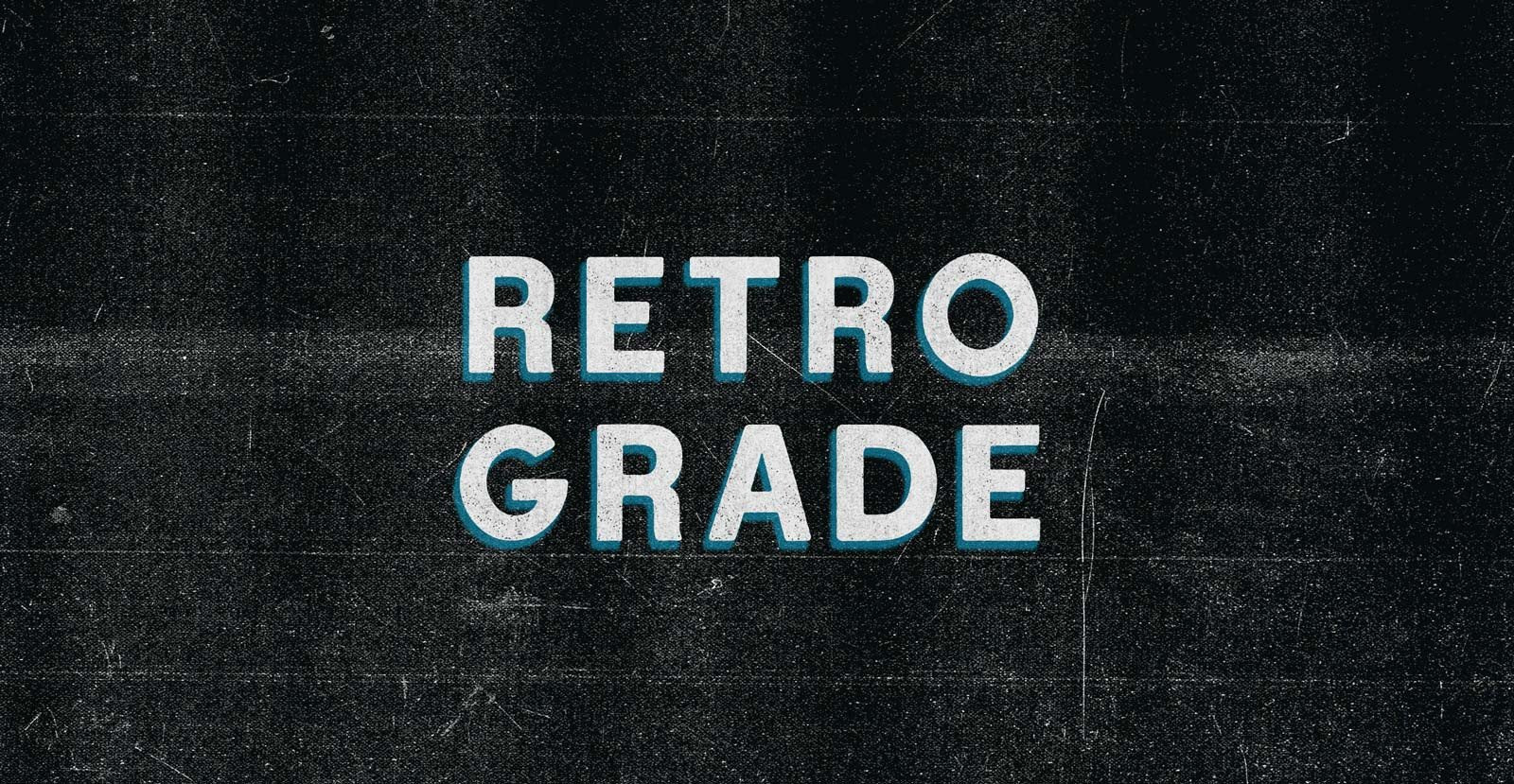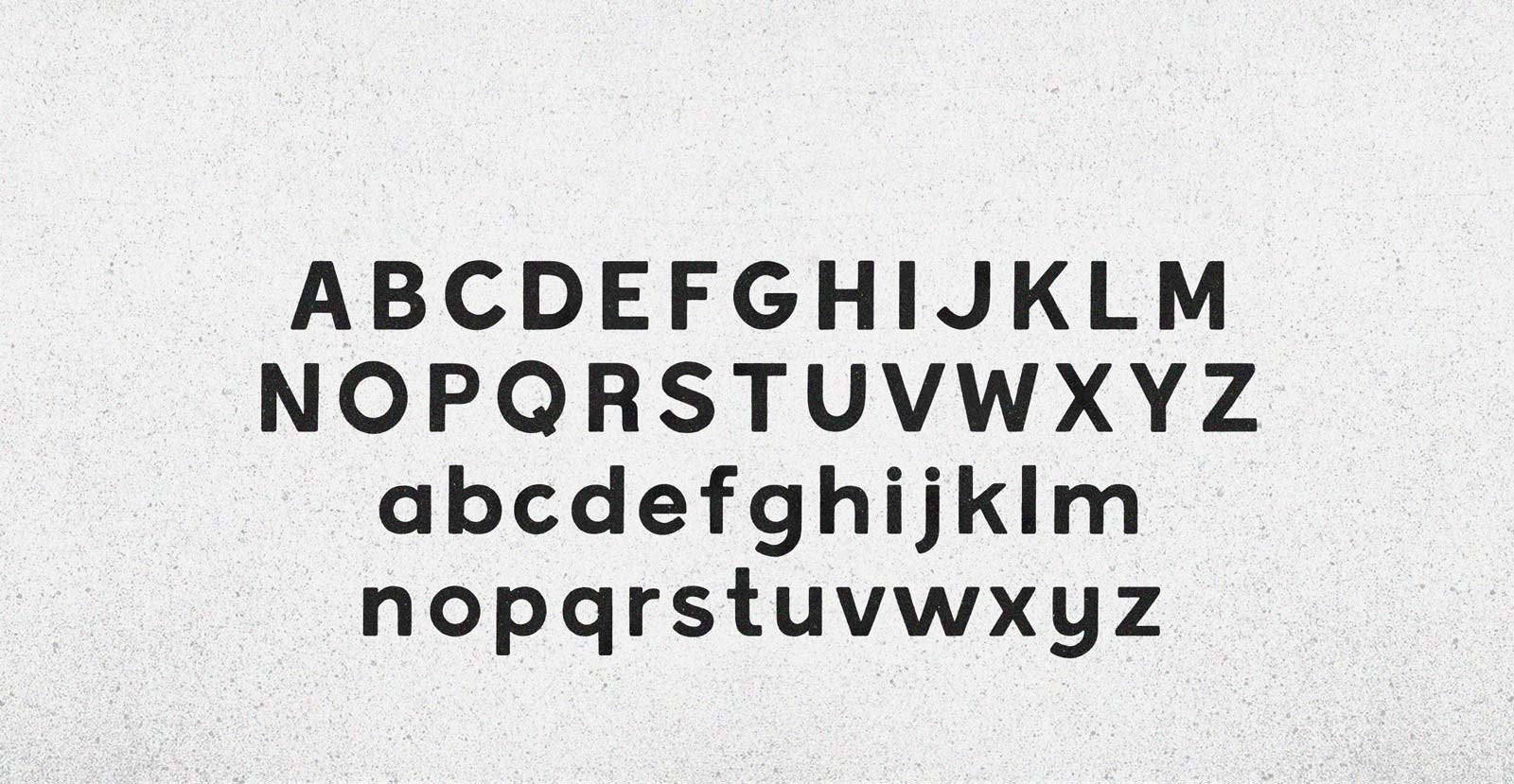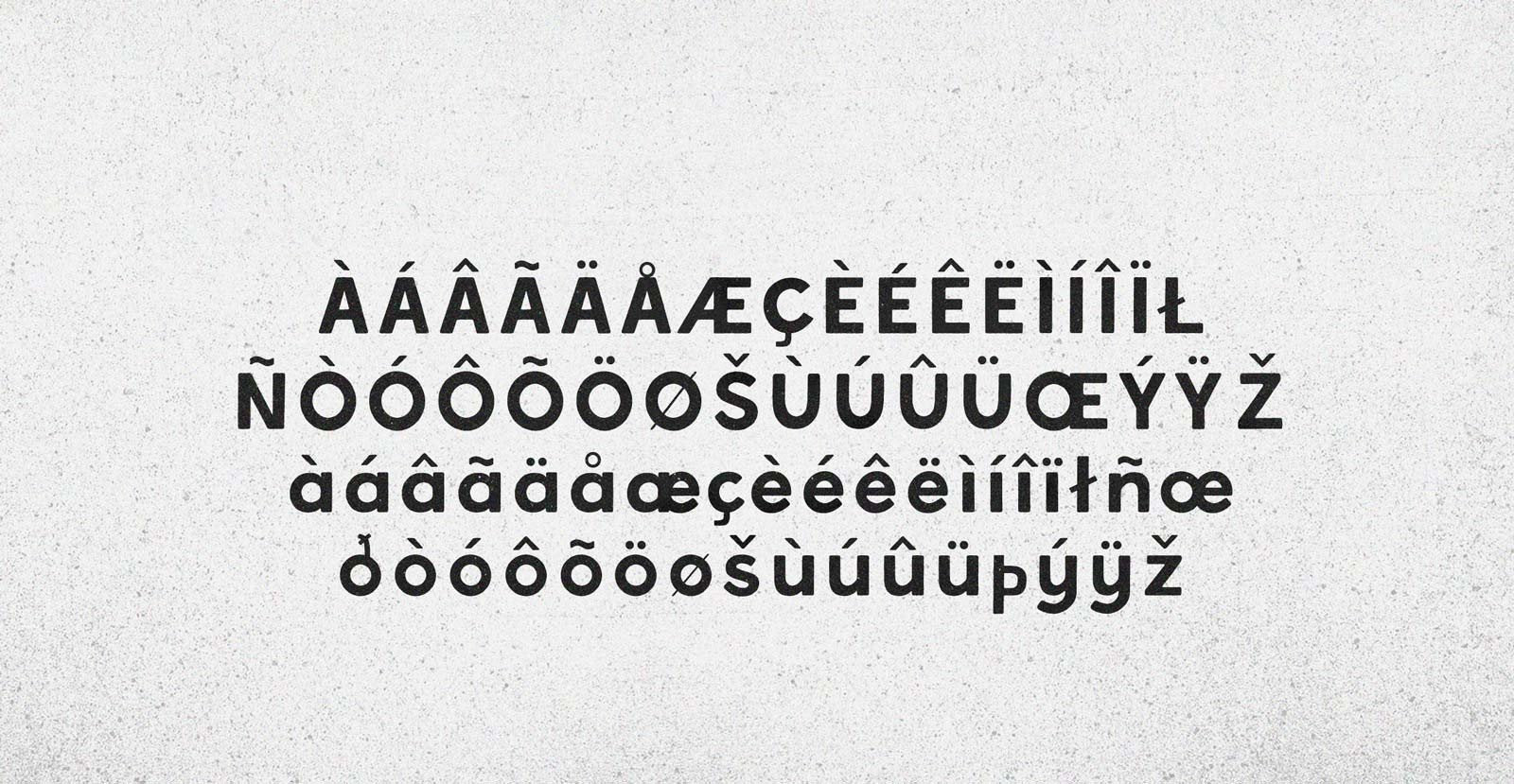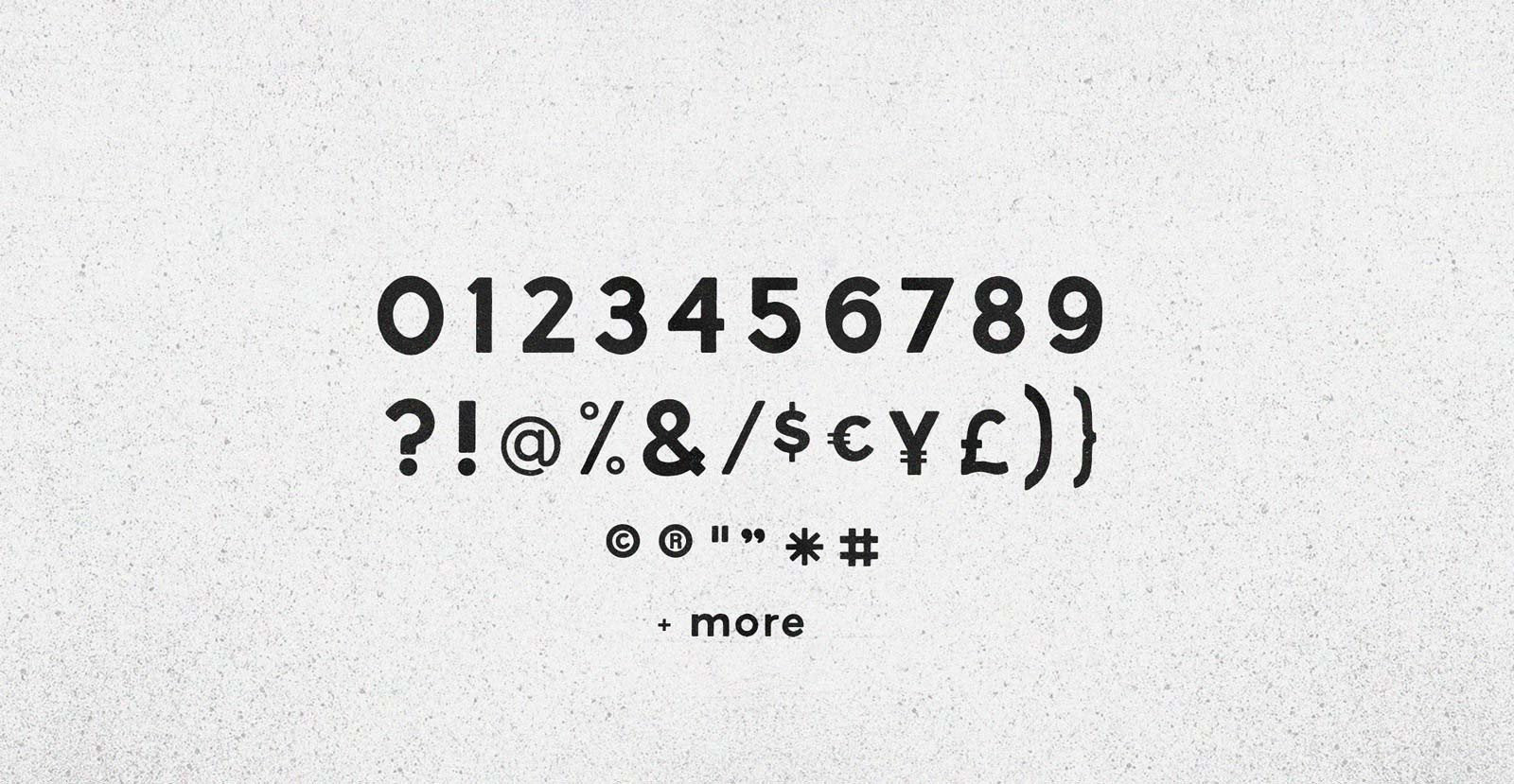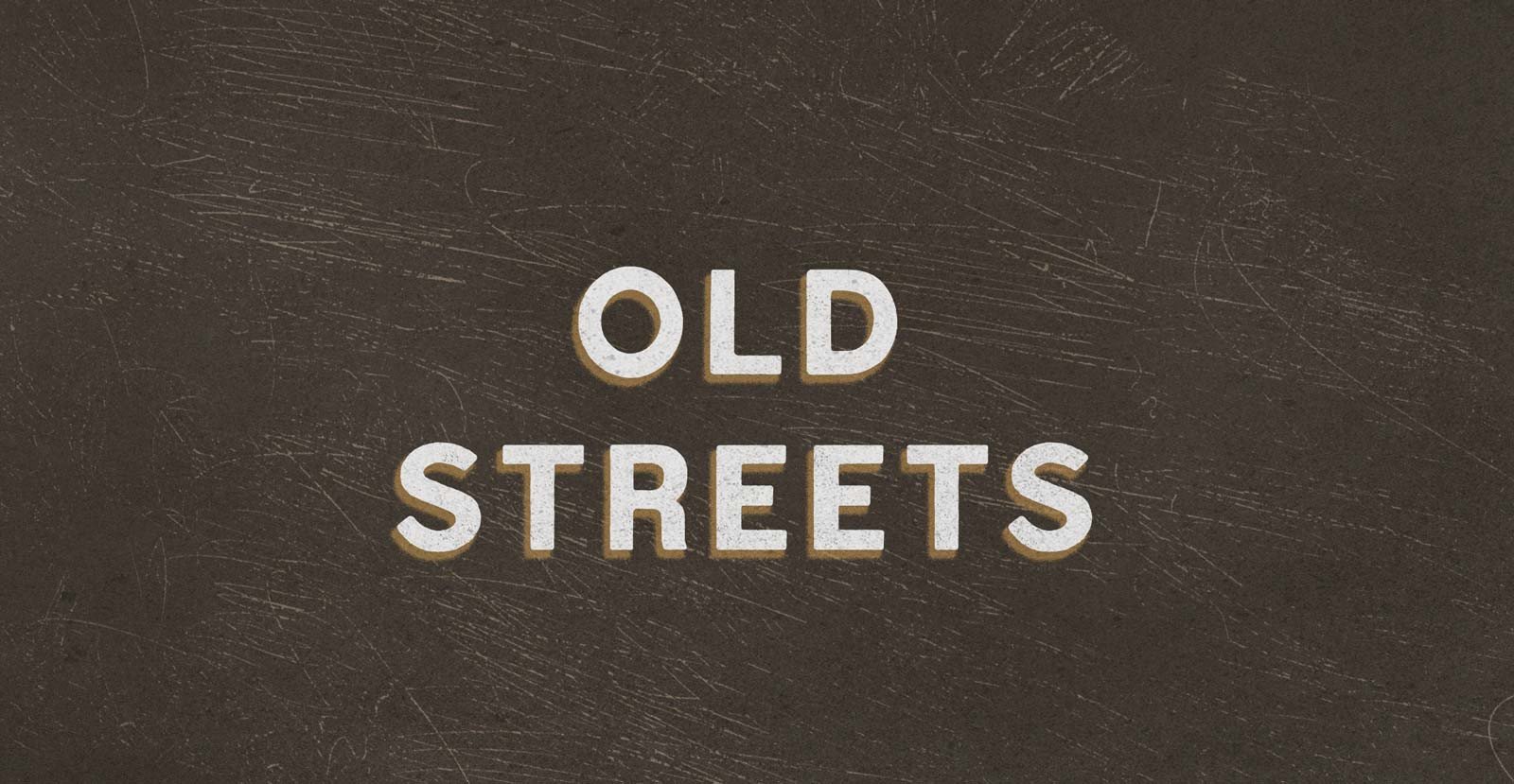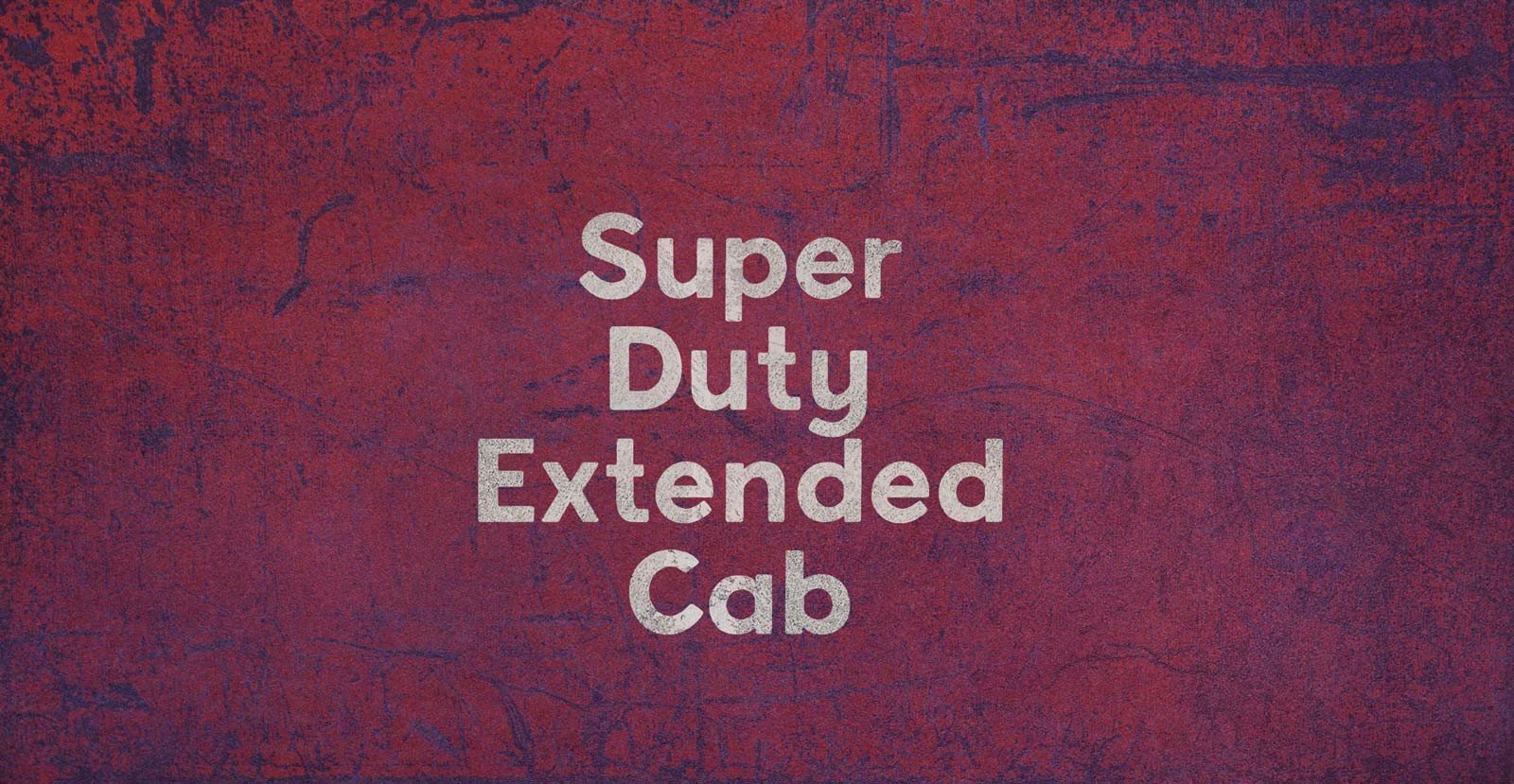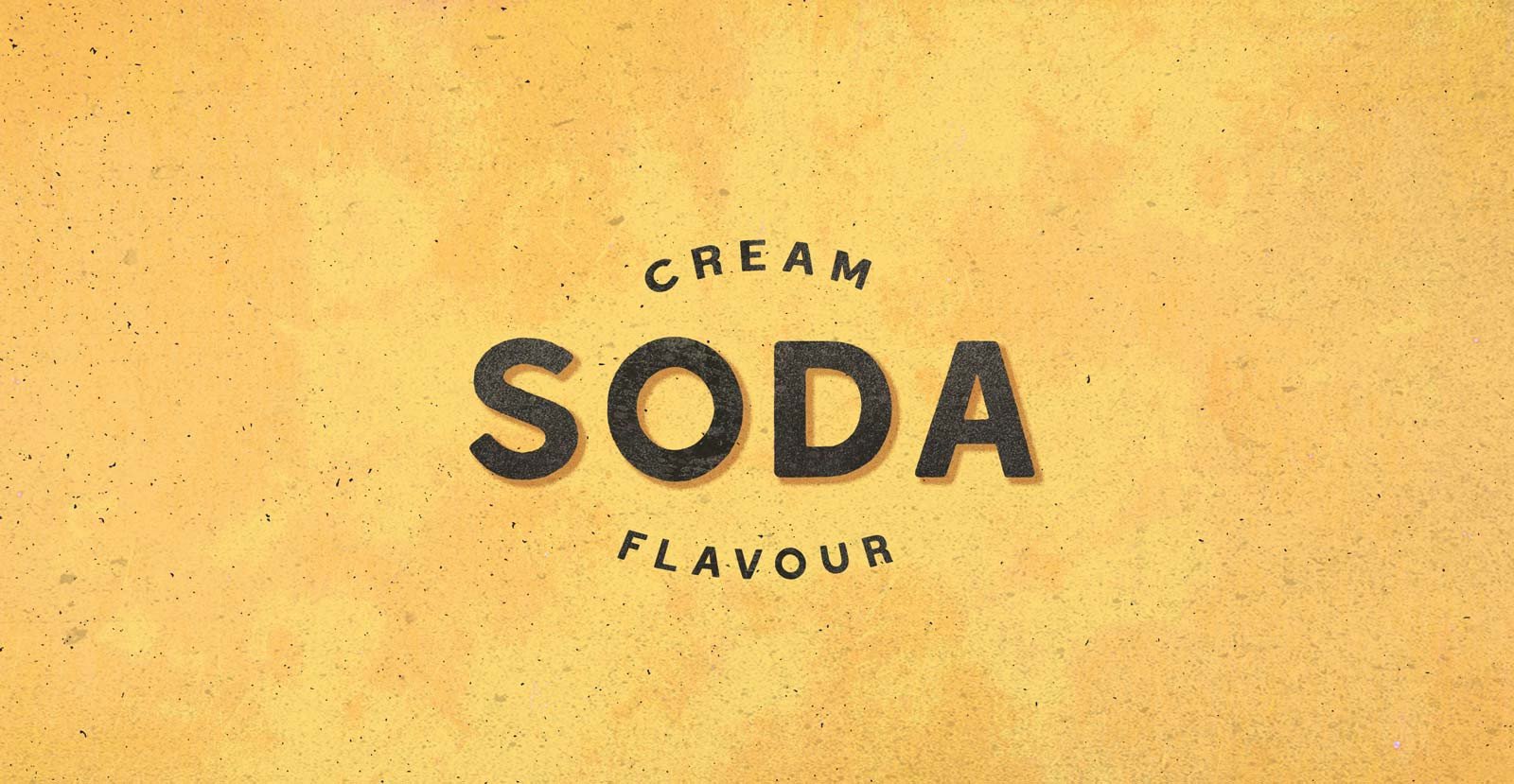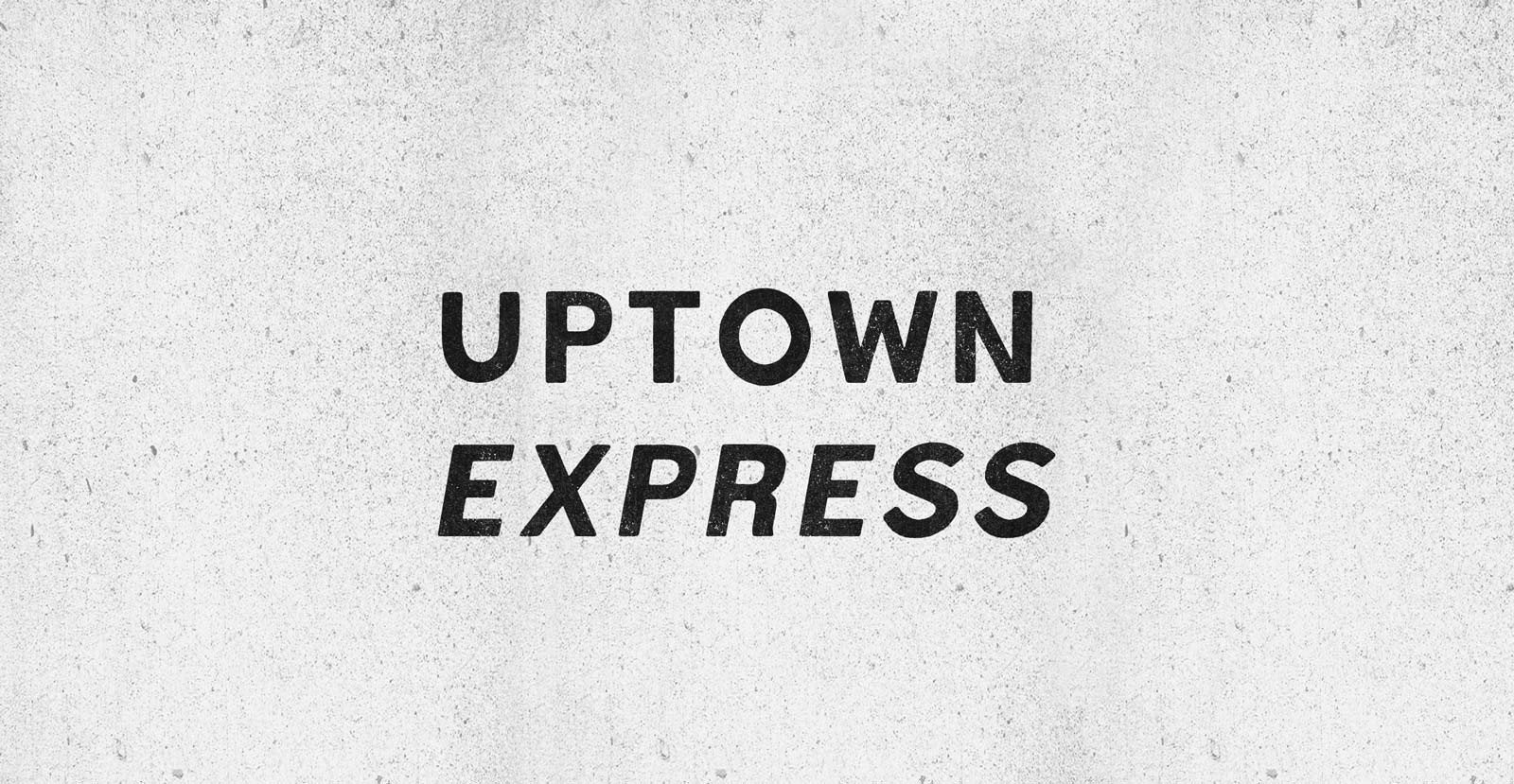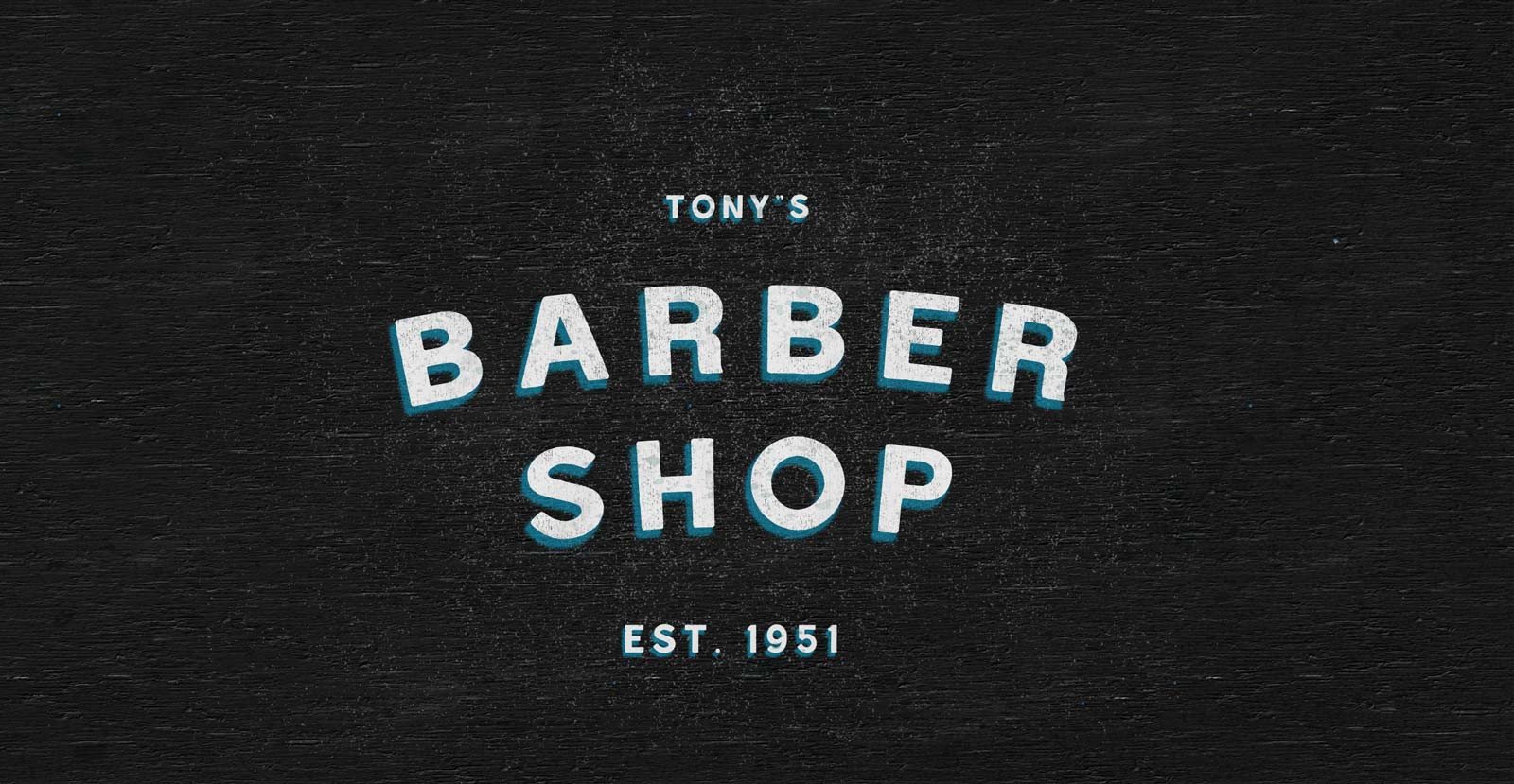
Retro Grade
Handwritten Sans Serif Font
I failed fourth grade until my teacher got sick of my '80s TV references and knocked me all the way back to Retro Grade. I started down the corridor and my heart sank as I sauntered past the reality-artificiality barrier. I'd never be a real grown-up, only a creepily juvenile 30 year old welcoming back Kotter.